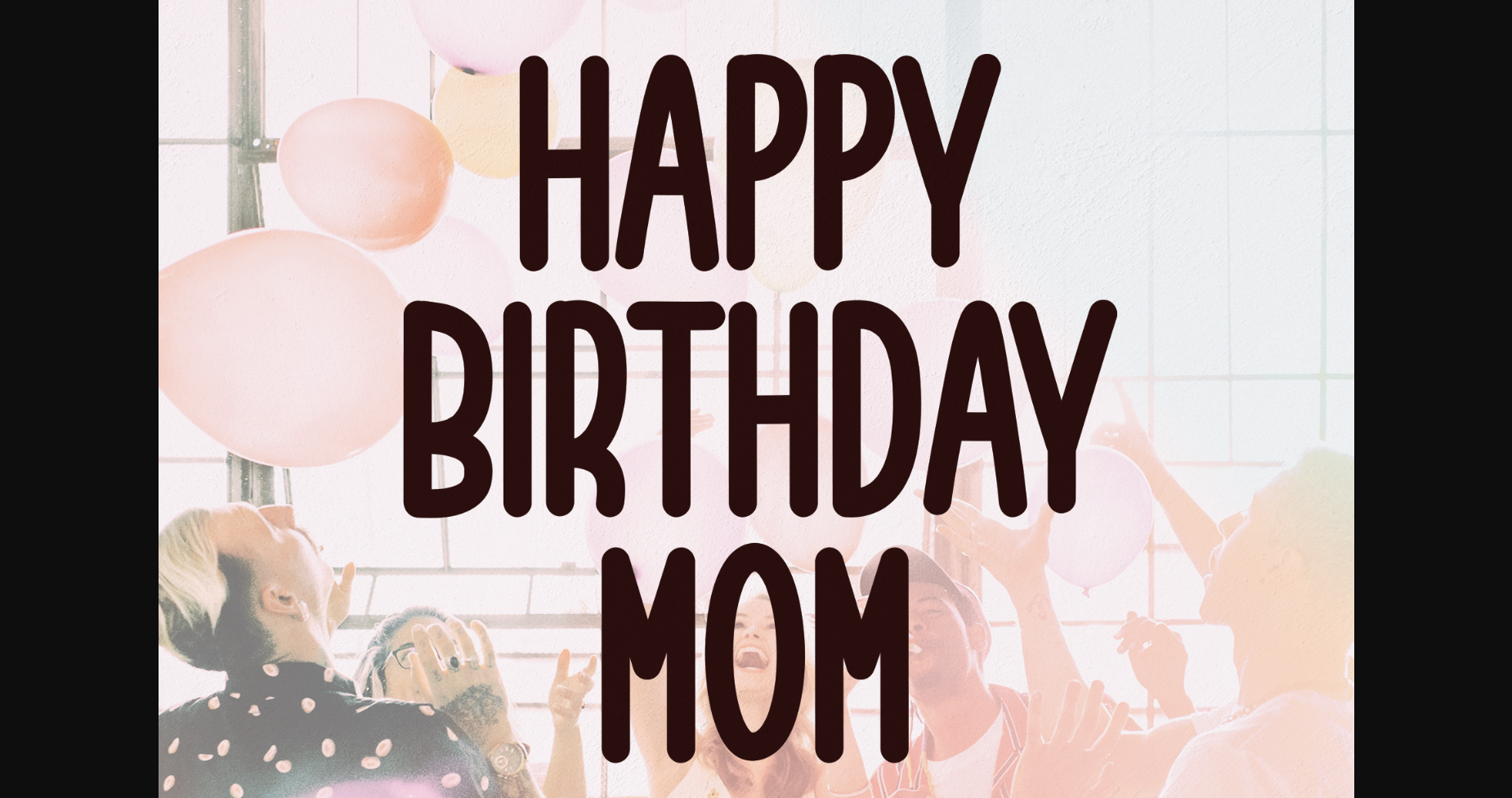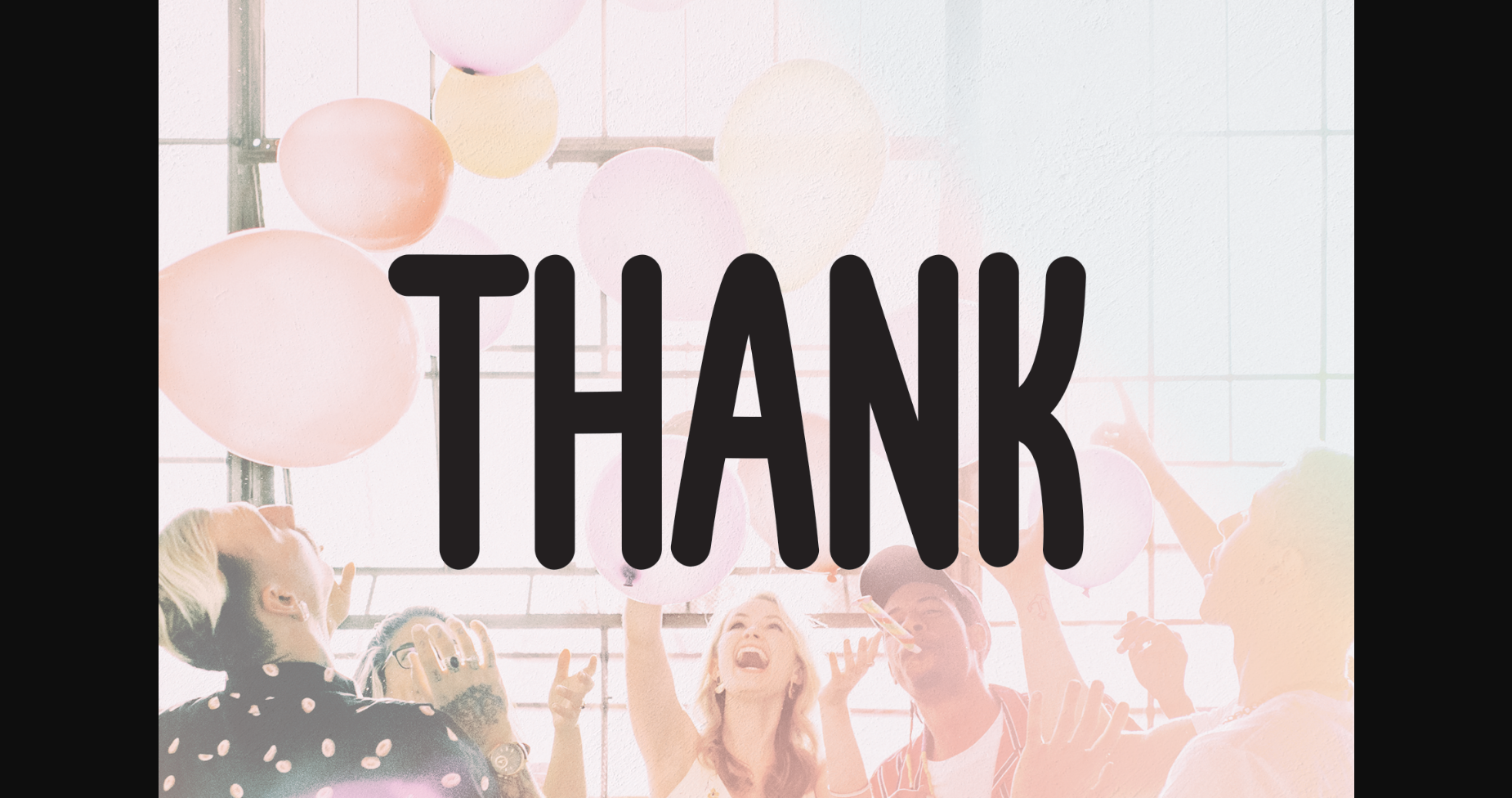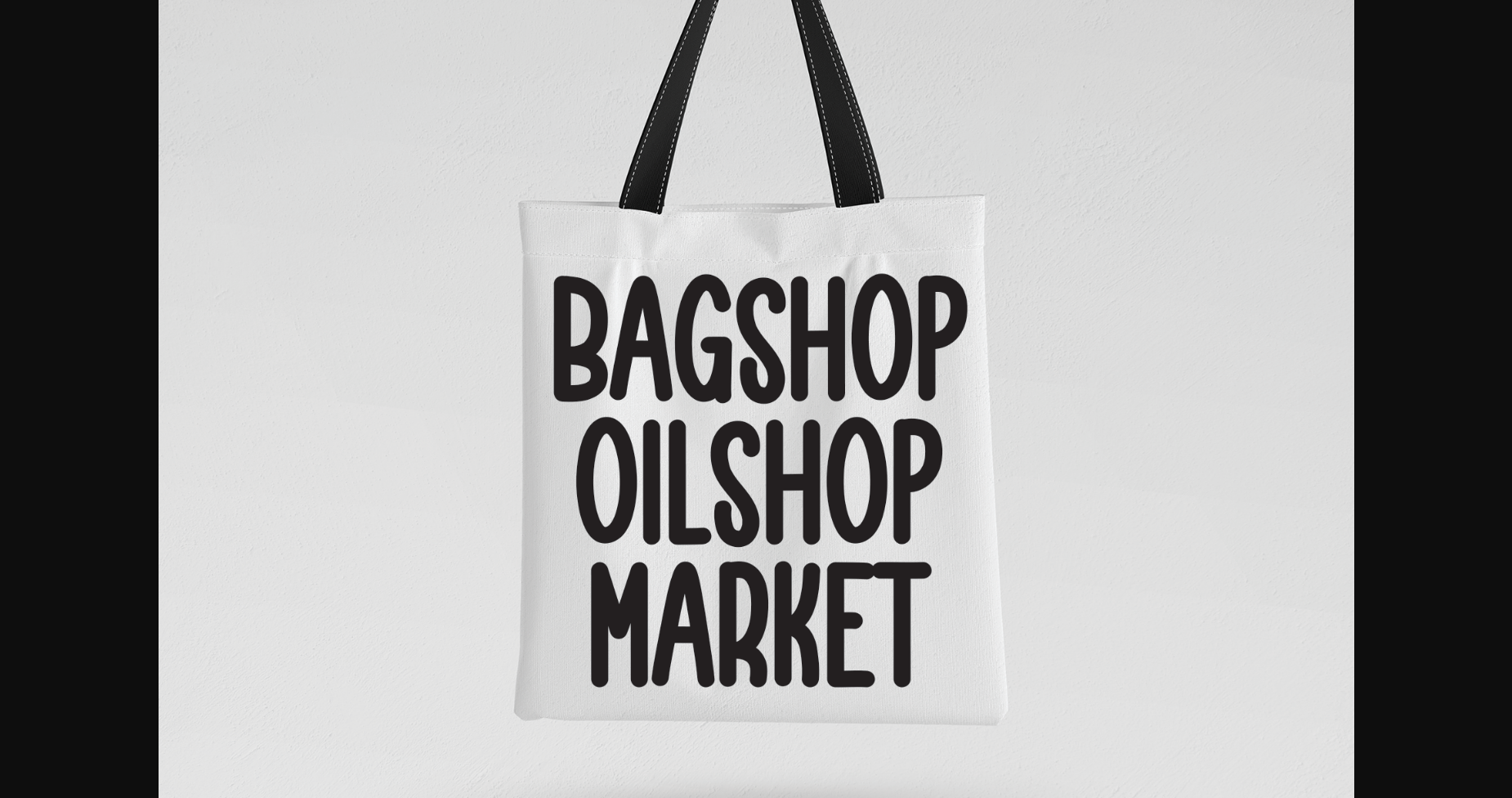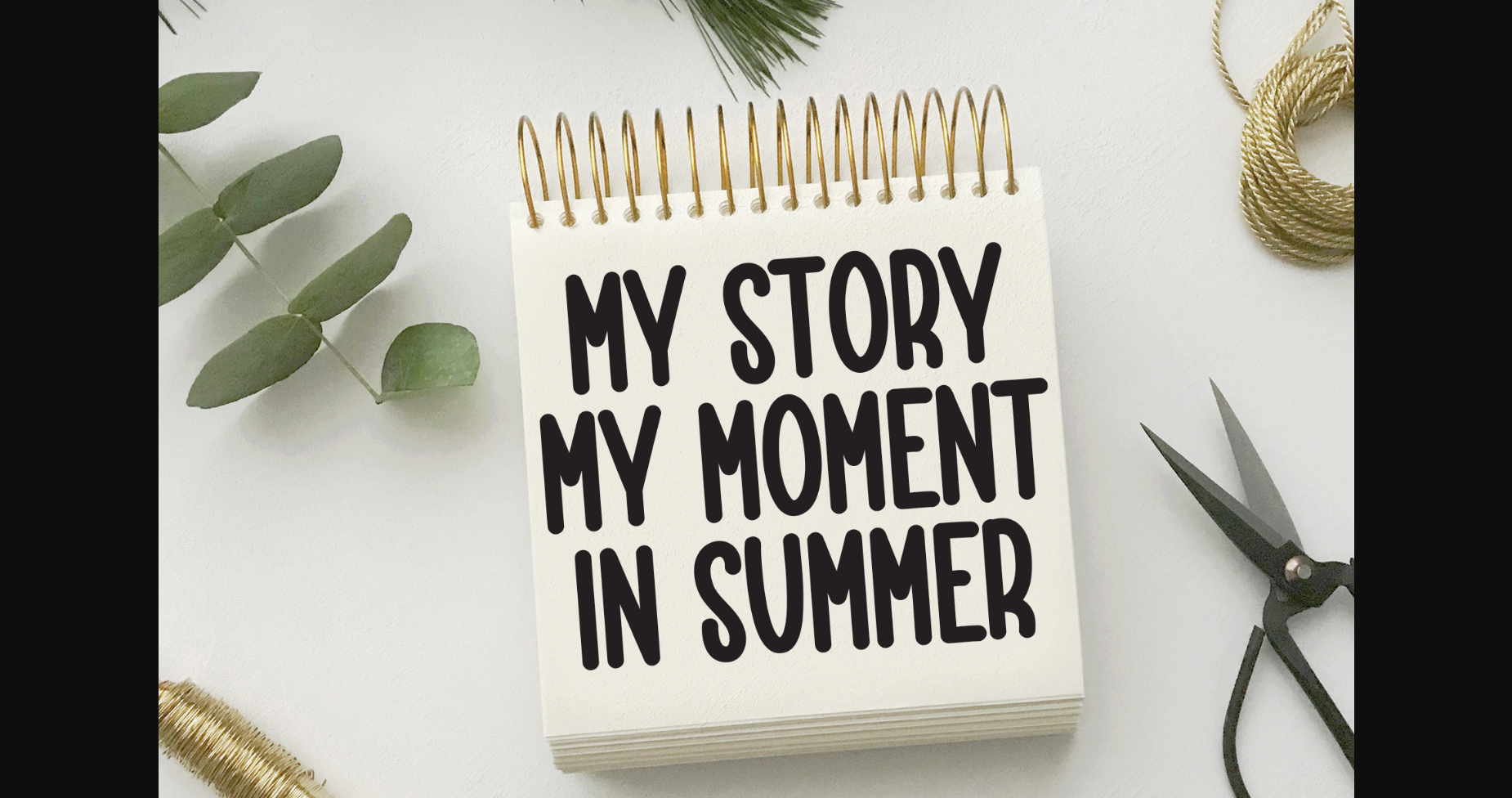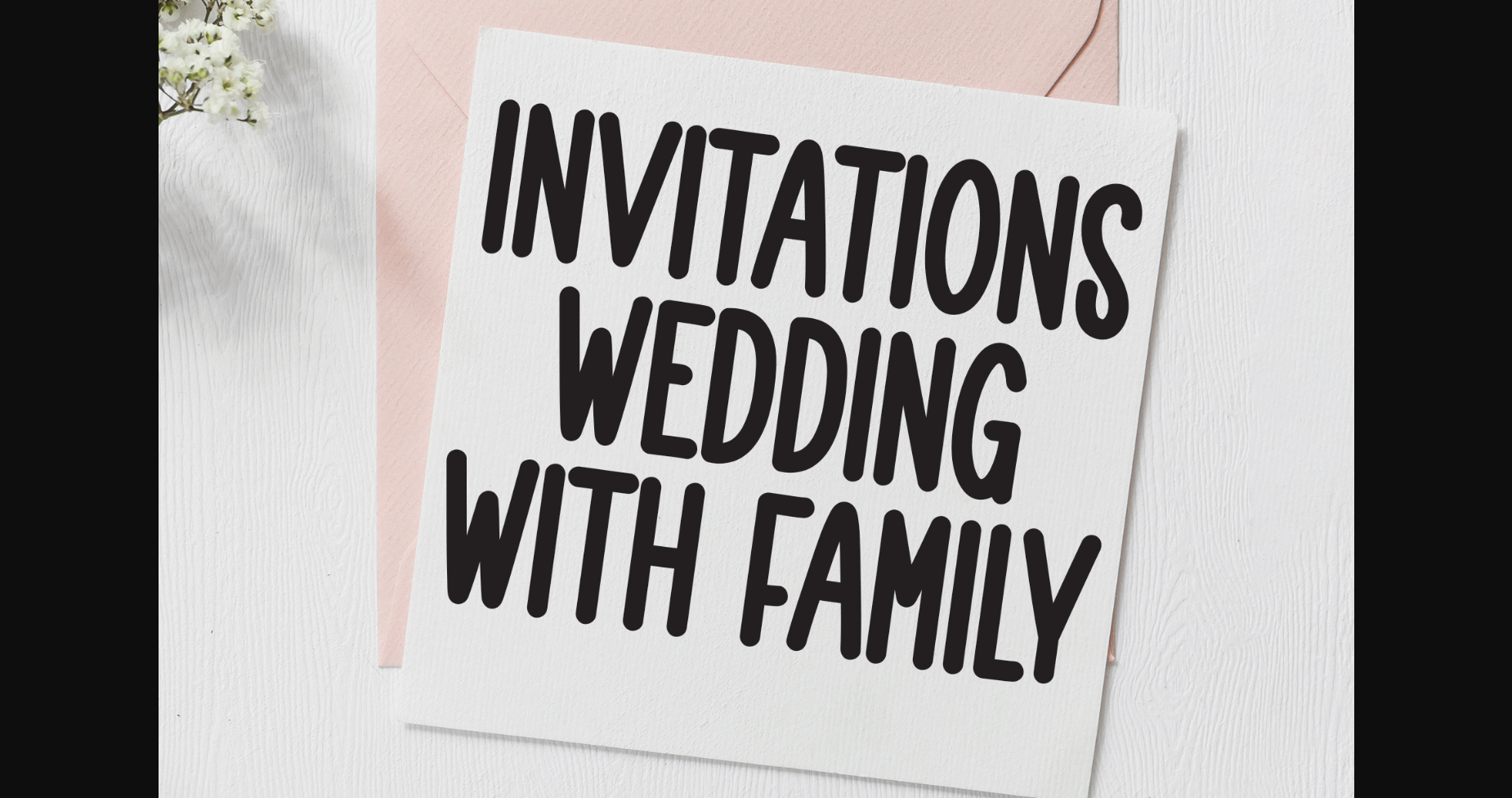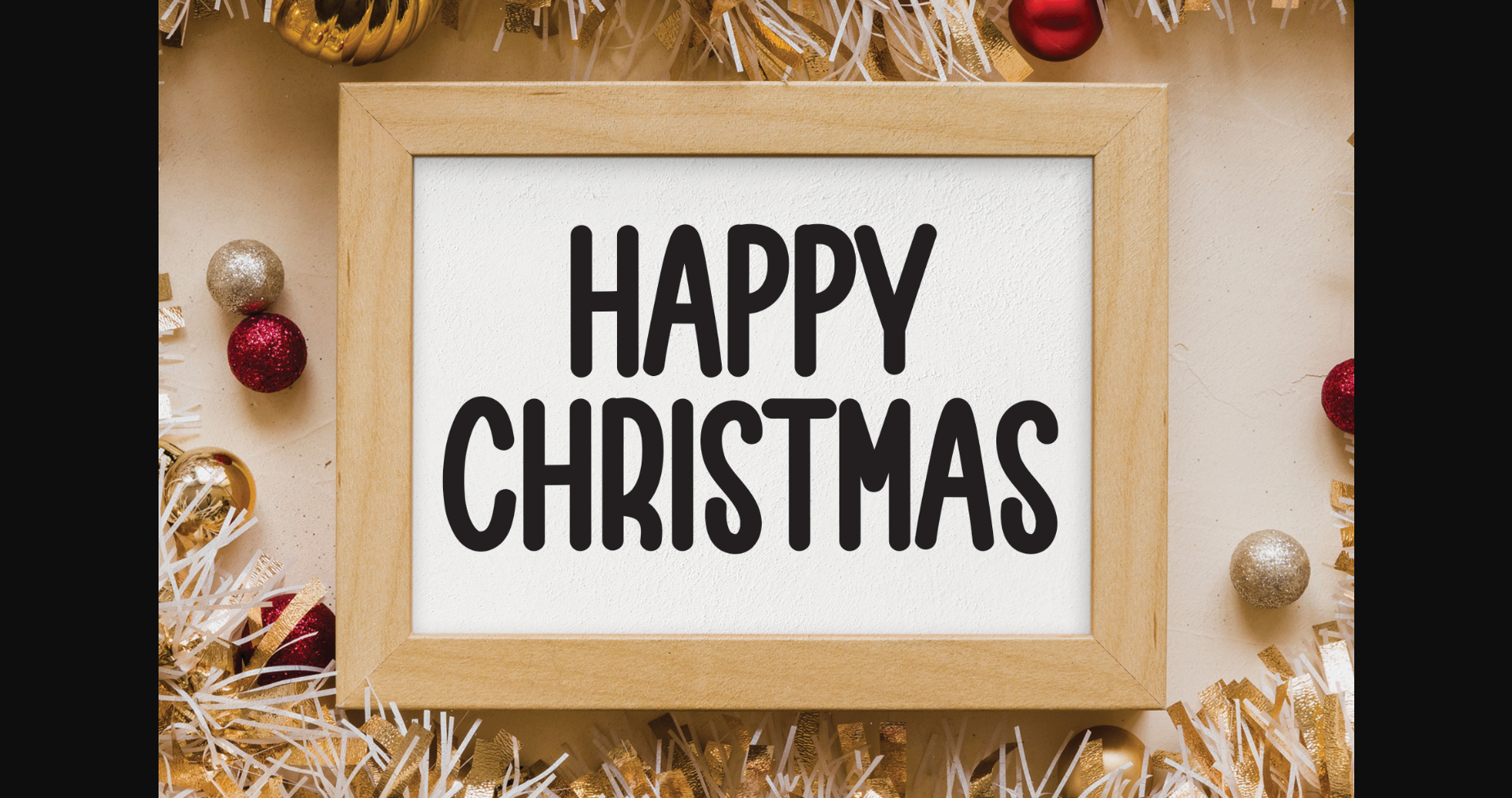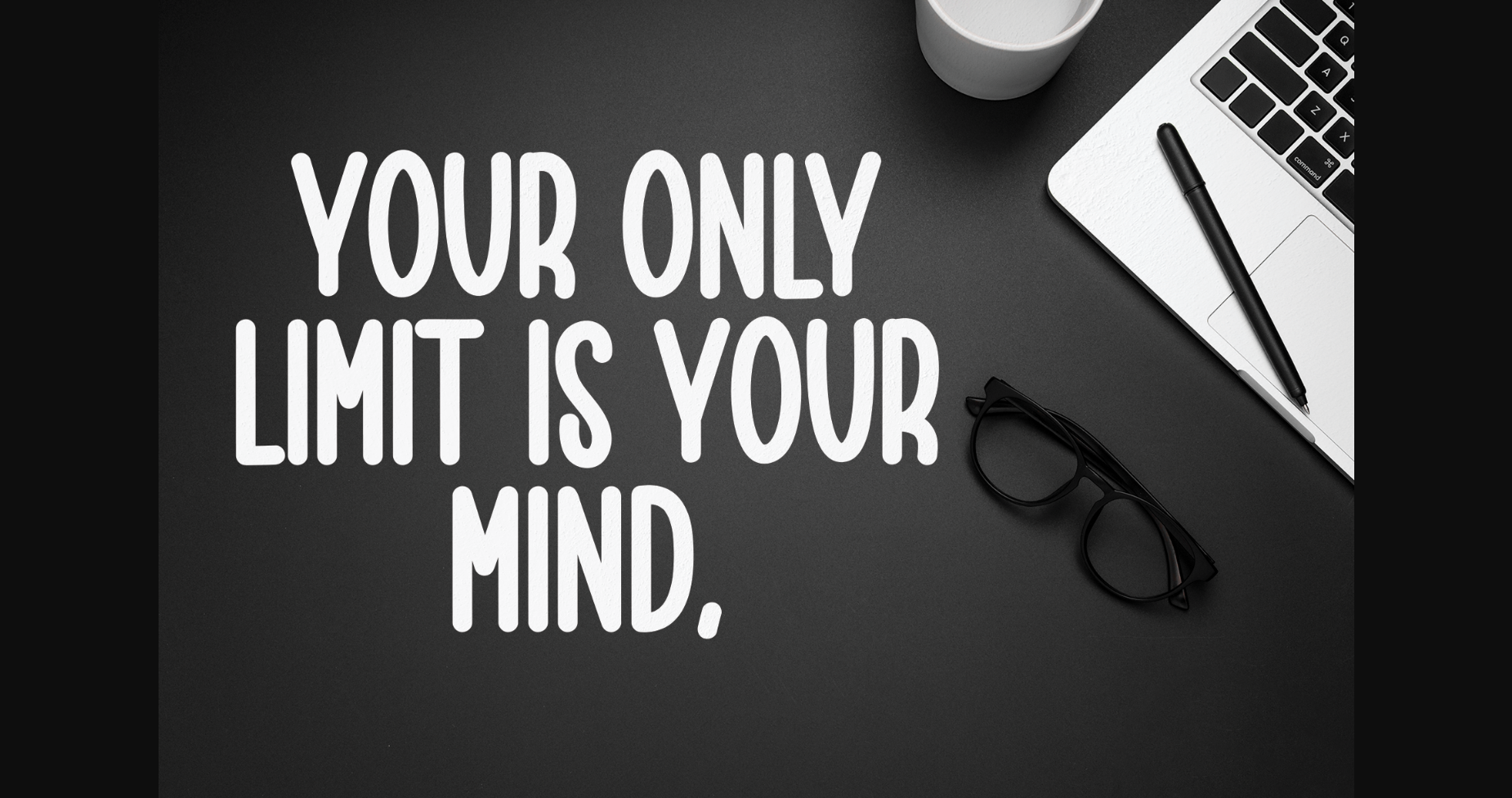
Happy Birthday Mom Font
About Happy Birthday Mom Font
Happy Birthday Mom is a simple and charming sans serif font. Its latest style letters are perfect for wall displays, wedding invitations, social media post logos, advertisements, product packaging, product designs, labels, photography, watermarks, invitations, stationery, and any project that requires a modern look.